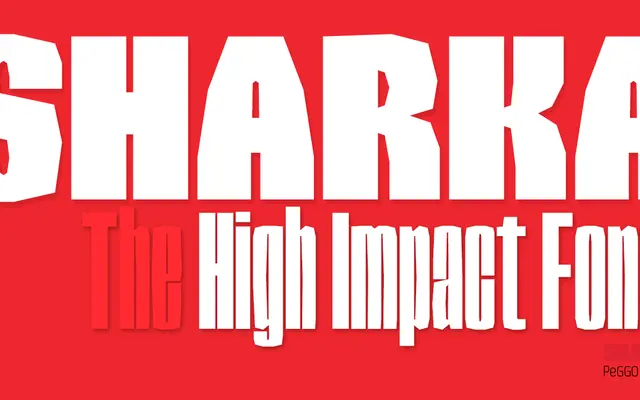
A heavy condensed display family in 21 variants, built around sharp angular forms intended for aggressive headlines and high-impact advertising.
Sharka spans seven width variants from Extra Condensed to an extra-poster cut, each available in upright, italic and alternate versions for a total of 21 fonts. The italic cuts are designed to convey speed and mechanical energy, while the alternate set offers stylistic variation for the same weight and width pairings. Aimed squarely at magazine covers, advertising alerts and action-oriented editorial work where size and impact take precedence over legibility at small scales.
A heavy, sharp, condensed display family explicitly designed for high-impact headlines and extreme visual contexts; the aggressive angular forms and compressed widths place it firmly in the display category with no text-setting intent.